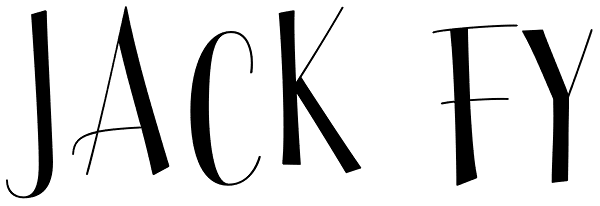
Jack FY
Jack FY, a modern and jazzy typeface, with high contrasts and a dancing base line. Hit the font Jack! This Babyfont was co-created by Jérémie Hornus and Jason Vandenberg on fontyou.com, the first collaborative type foundry ——— ***The Babyfonts, a...